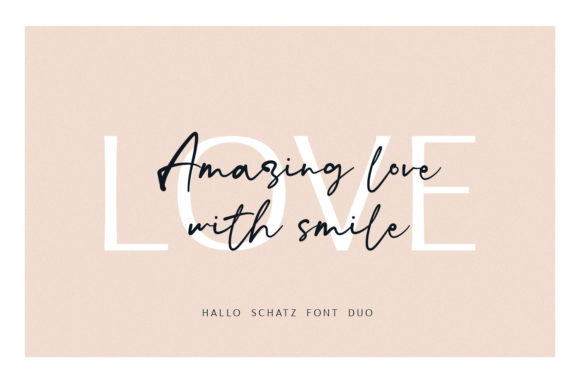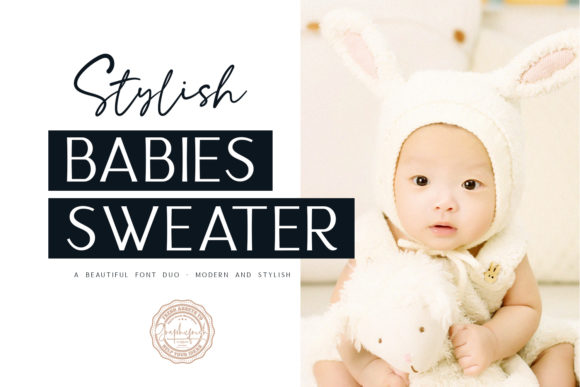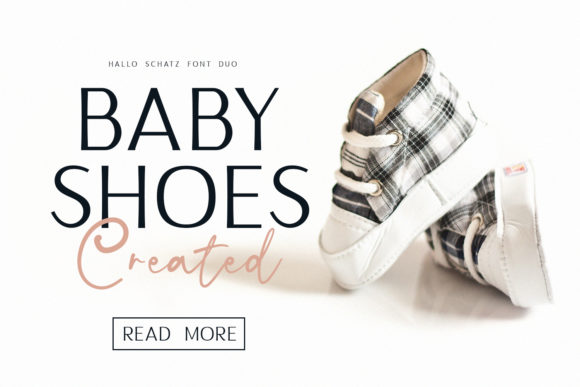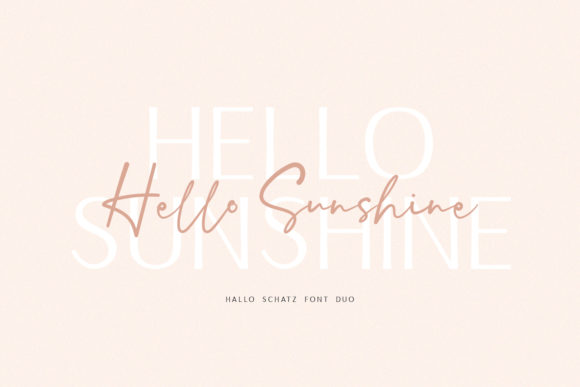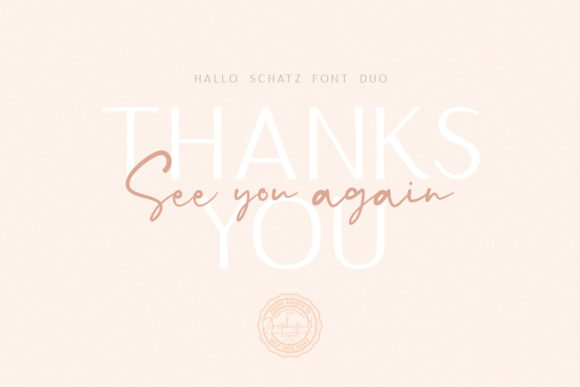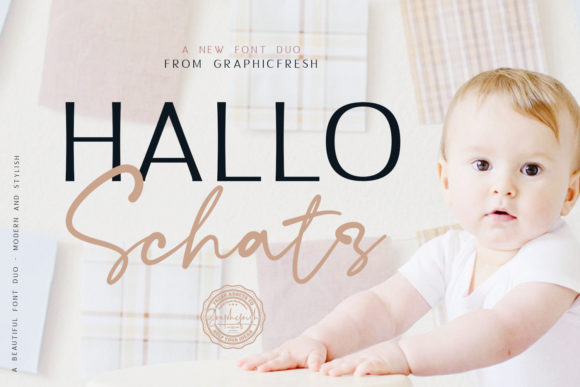
The Perfect Match for Your Creative Projects
Do you ever get that feeling when you’re brainstorming ideas for a new project, and everything just clicks into place? The words flow, the colors pop, and the overall aesthetic is simply stunning. For designers, that moment is a treasure to behold, and the right font can be the key to unlocking it. That’s where the Hallo Schatz Duo Font comes in – a beautiful, elegant, and striking typeface that’s perfect for making any design stand out.
This versatile font duo is not just a pretty face; it’s a valuable tool for designers looking to elevate their work. With its sophistication and charm, the Hallo Schatz Duo Font is ideal for branding, wedding invitations, magazines, and more. Whether you’re creating a bold statement or a subtle touch, this font is sure to make your designs shine.
Hallo Schatz Duo Font Key Features
- Unique Characteristics: Hallo Schatz Duo Font features a unique, hand-drawn design with a mix of modern and vintage elements, making it perfect for creating eye-catching and unique designs.
- Font Style: The font is available in two styles: Regular and Bold, allowing designers to create contrast and emphasis in their designs.
Hallosatz Duo Font Review
As a designer, I’m always on the lookout for unique and versatile fonts that can elevate my designs. The Hallosatz Duo font is one such font that caught my attention, and I must say, it’s a mixed bag.
The Hallosatz Duo font has a beautiful, handwritten feel to it, making it perfect for titles and headings.
The font is highly customizable, with multiple weights and styles to choose from, allowing for a lot of creative freedom.
The font is also quite readable, even at smaller font sizes, making it suitable for body text as well.
The font can be a bit too ornate for some designs, which may make it difficult to read in certain contexts.
The font’s high customization options can also make it overwhelming to choose the right style, especially for designers who are not familiar with it.
The Hallosatz Duo font is a great addition to any designer’s toolkit, but it’s not without its limitations. With its unique, handwritten feel and high customization options, it’s perfect for designers who want to add a touch of personality to their designs. However, it may not be the best choice for every project, and designers should be mindful of its limitations when choosing it.
The Hallo Schatz Duo font is ideal for creating romantic and whimsical designs, such as:
– Wedding invitations
– Baby announcements
– Valentine’s Day cards
– Handmade crafts
For optimal results, use the Hallo Schatz Duo font in combination with other vintage or distressed fonts to create a unique and eye-catching design.
– Experiment with different font sizes and colors to create visual interest.
– Use the font in conjunction with images or graphics to add texture and depth to your design.